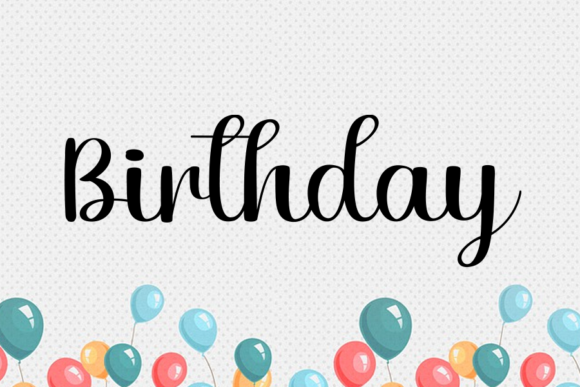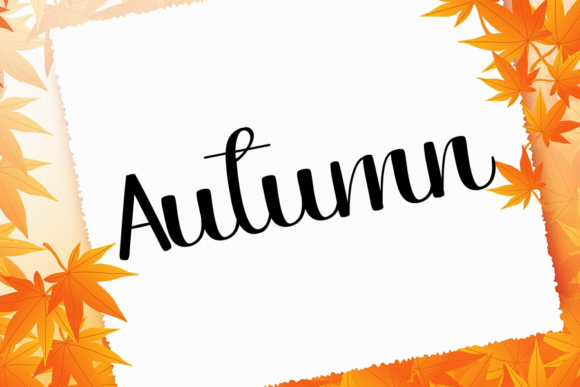
Butter Handmade Font
db-ku.com - Script & Handwritten -- Butter Handmade is a delicate handwritten font carefully created with a touch of elegance. Whether you’re looking for fonts for Instagram or calligraphy scripts for DIY projects, this font will turn any creative idea into a true piece of art!